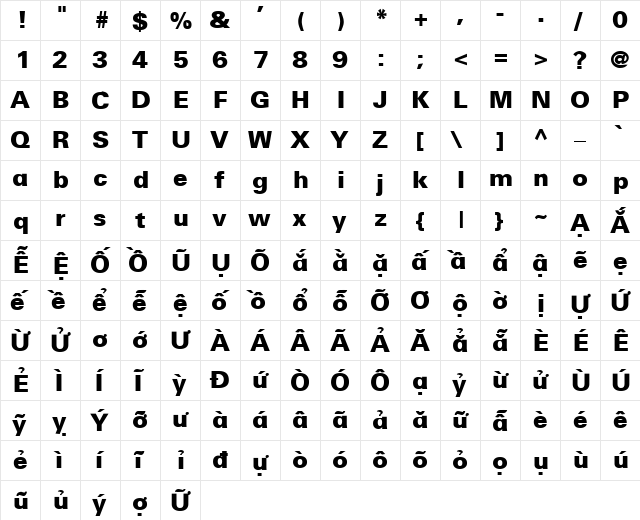
VI Thuoc Duoc Normal
Design Context for VI Thuoc Duoc Typeface
VI Thuoc Duoc is a composed and adaptable typeface that performs quietly and consistently across a wide range of design contexts.